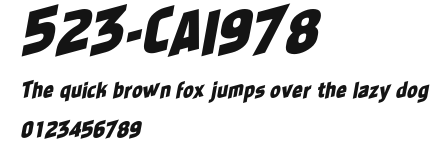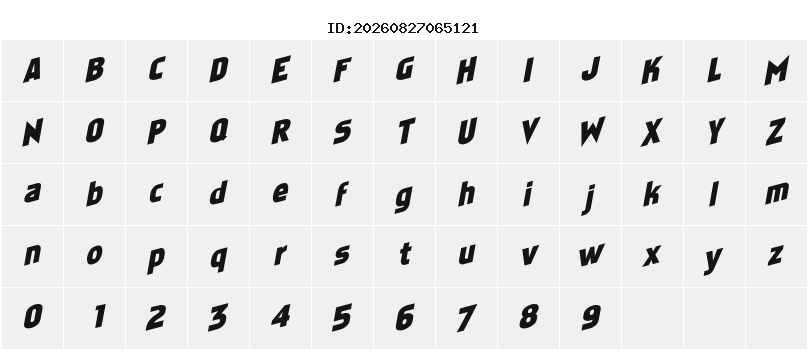
• Font Name: 523-CAI978
• Full Font Name: 523-CAI978
About 523-CAI978.ttf
523-CAI978.ttf is a modern, elegant sans-serif font designed for ultimate readability and visual harmony. Perfect for branding, headlines, web design, and print materials.